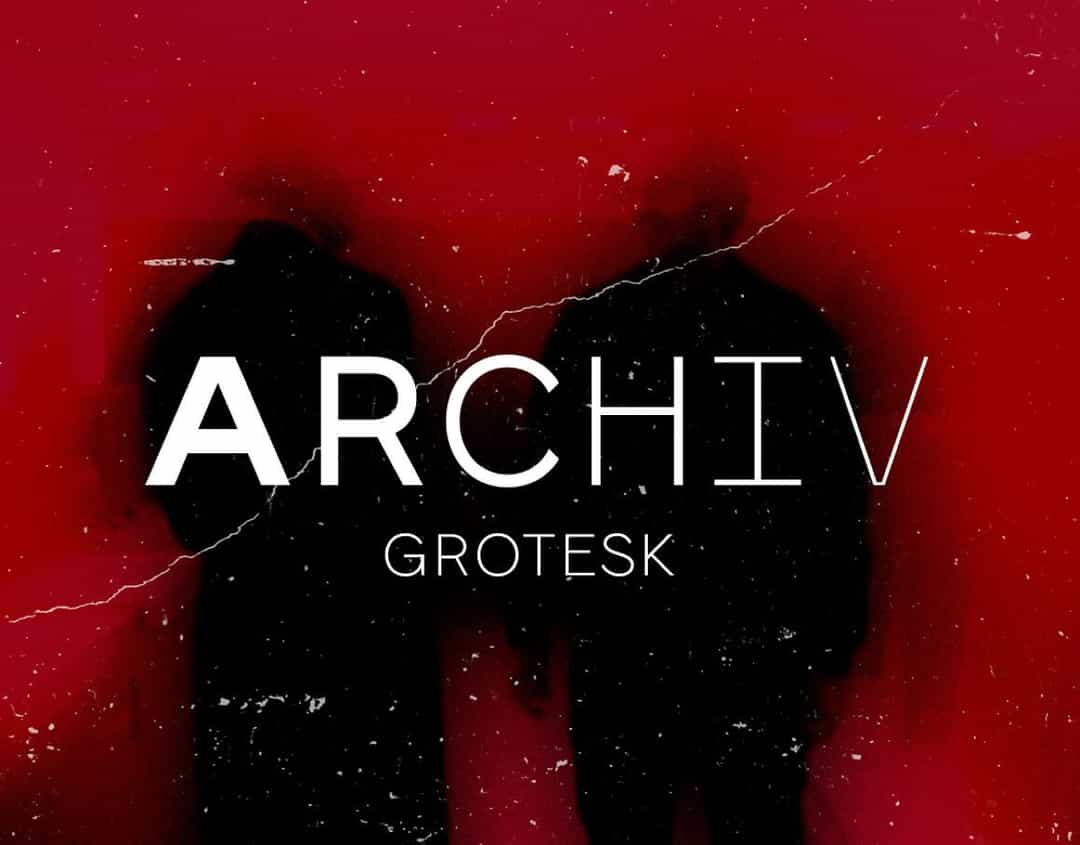
Archiv Grotesk Font Family draws inspiration from Stanley Kubricks archives. Was crafted by designer Clarkson Tomas. There are a total of six weights catering to European languages and supporting, over 200 characters.